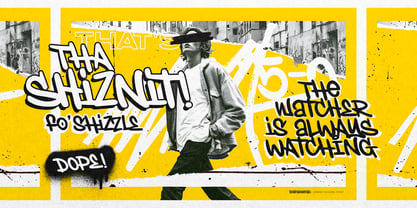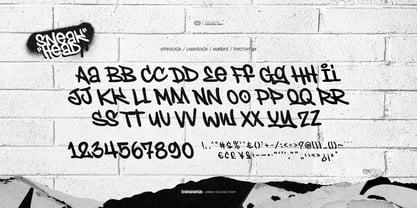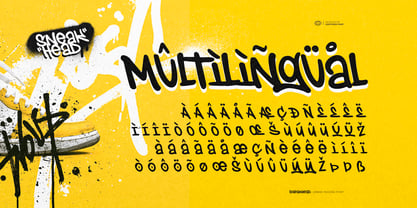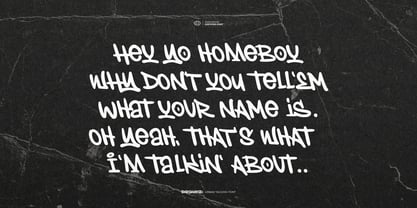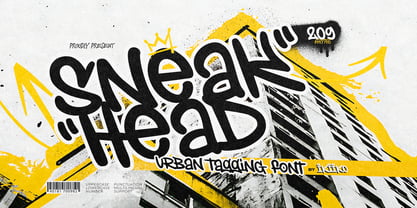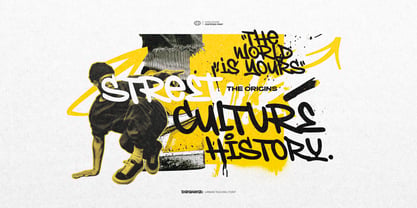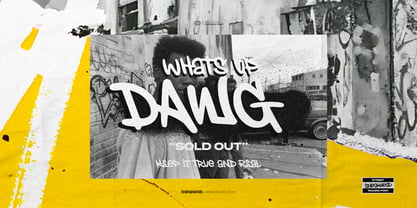
Sneakhead
Proudly Present Sneakhead - Urban Tagging Font, created by ikiiko
Sneakhead is a raw urban tagging font born from the heart of the street. Inspired by underground graffiti, wall tags,, skate parks, abandoned warehouses, and late-night city missions, this typeface captures the fearless energy of authentic street expression. Every letter feels hand-thrown, fast, imperfect, and alive—exactly how real tagging should look.
Built for designers who refuse to follow the rules, Sneakhead brings a dope, rebellious personality to every project. Its bold curves, flowing strokes, and oversized attitude make every word feel loud, confident, and impossible to ignore. This is typography for creators who embrace freedom, creativity, and the spirit of urban culture.
Perfect for posters, streetwear branding, zines, fashion, gaming, social media, Sneakhead delivers the authentic graffiti vibe that turns ordinary designs into statement pieces. It doesn't whisper—it shouts.
• Uppercase & Lowercase
• Numbers & Punctuation
• Multilingual Support